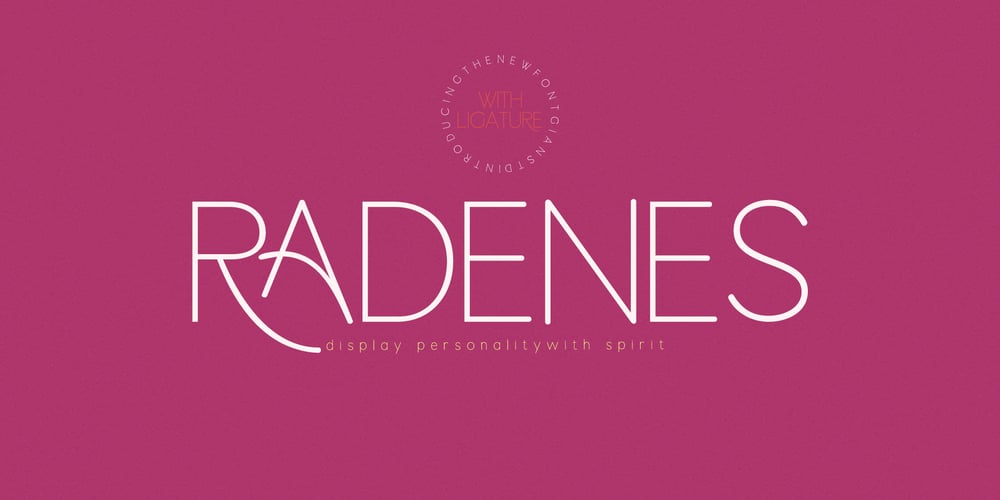
Radenes
Radenes font
Radenes Font Family was designed by Afri Giani and published by Gian Studio. Radenes contains 1 styles and family package options. Radenes is my new elegant serif font that will give your projects a touch of luxury and style. It’s perfect for logotypes, branding, monograms and wedding invitations, blog headlines, and more. Browse through all the previews and get as inspired as I was when creating this font.What did you get?-Uppercase Letters, Numbers, Punctuation & Symbols.Multilingual SupportImportant information:To access the alternatives, you must have access to an older version of Photoshop to copy/paste the glyphs from the included PSD, OR the Glyphs Panel, which can be found in Photoshop CC or any Version of Adobe Illustrator.Thanks.